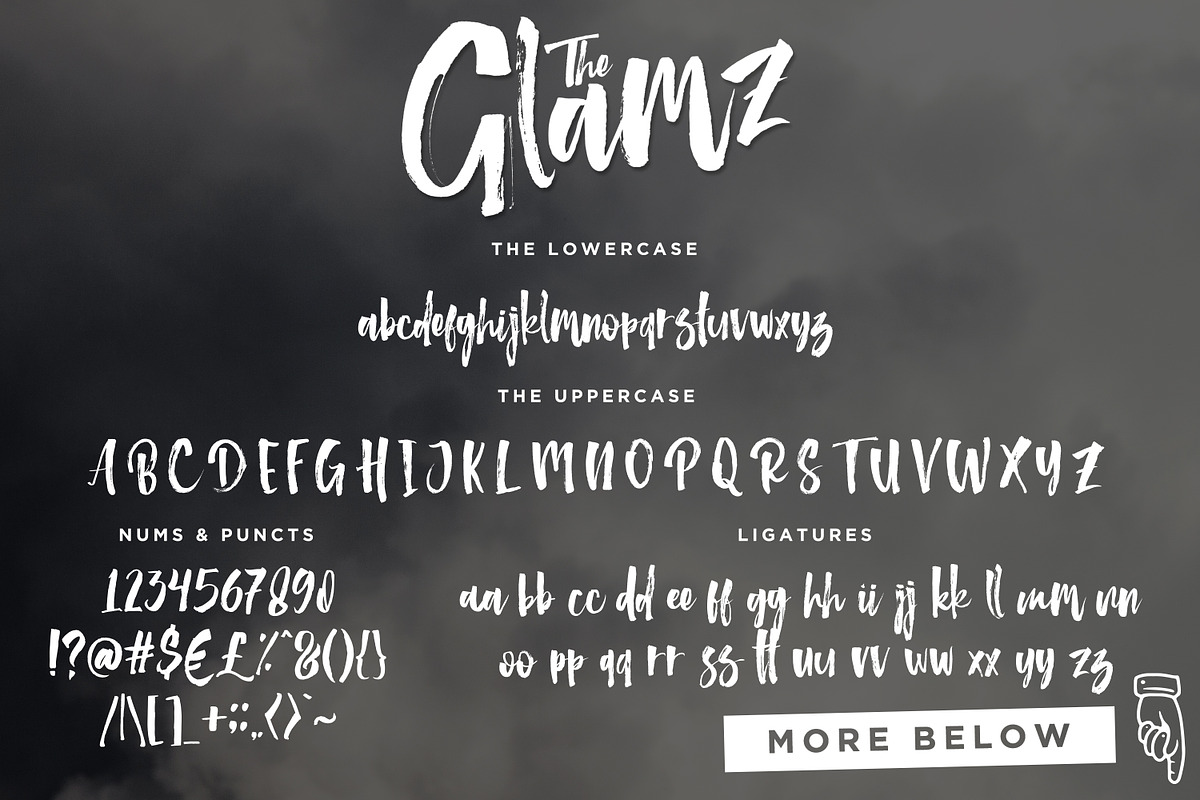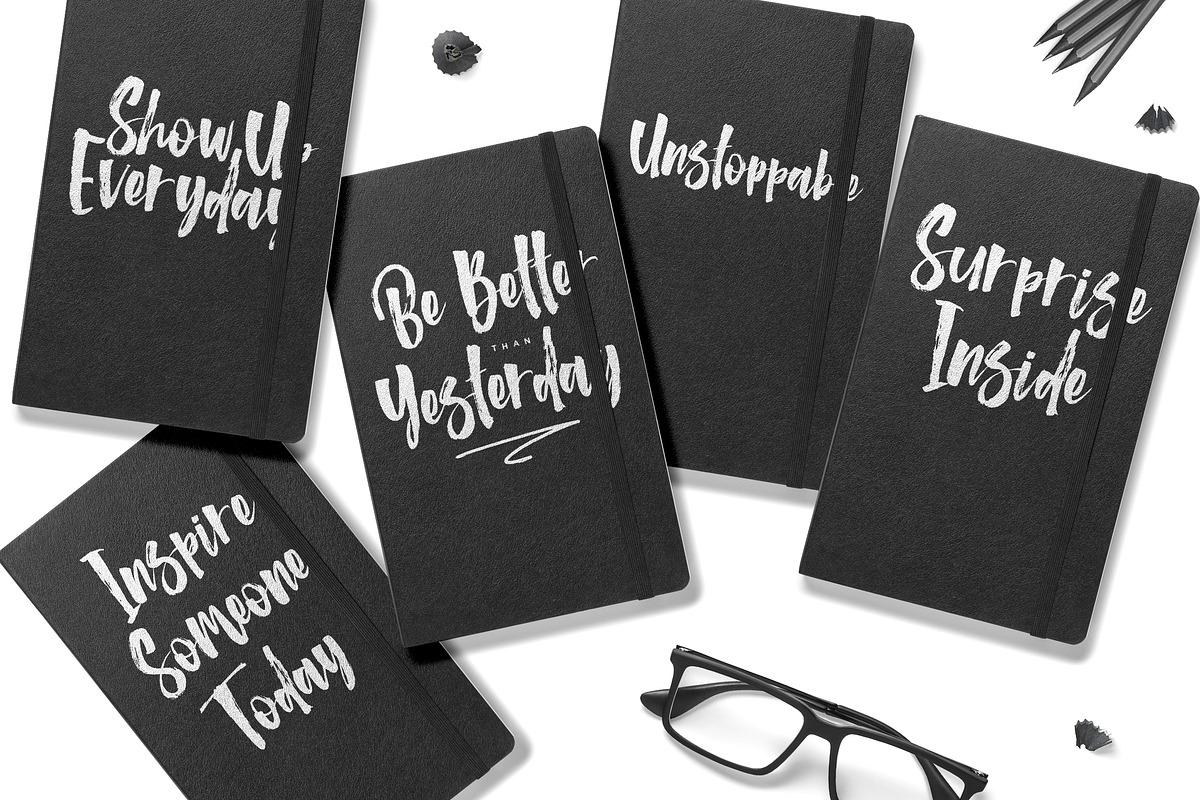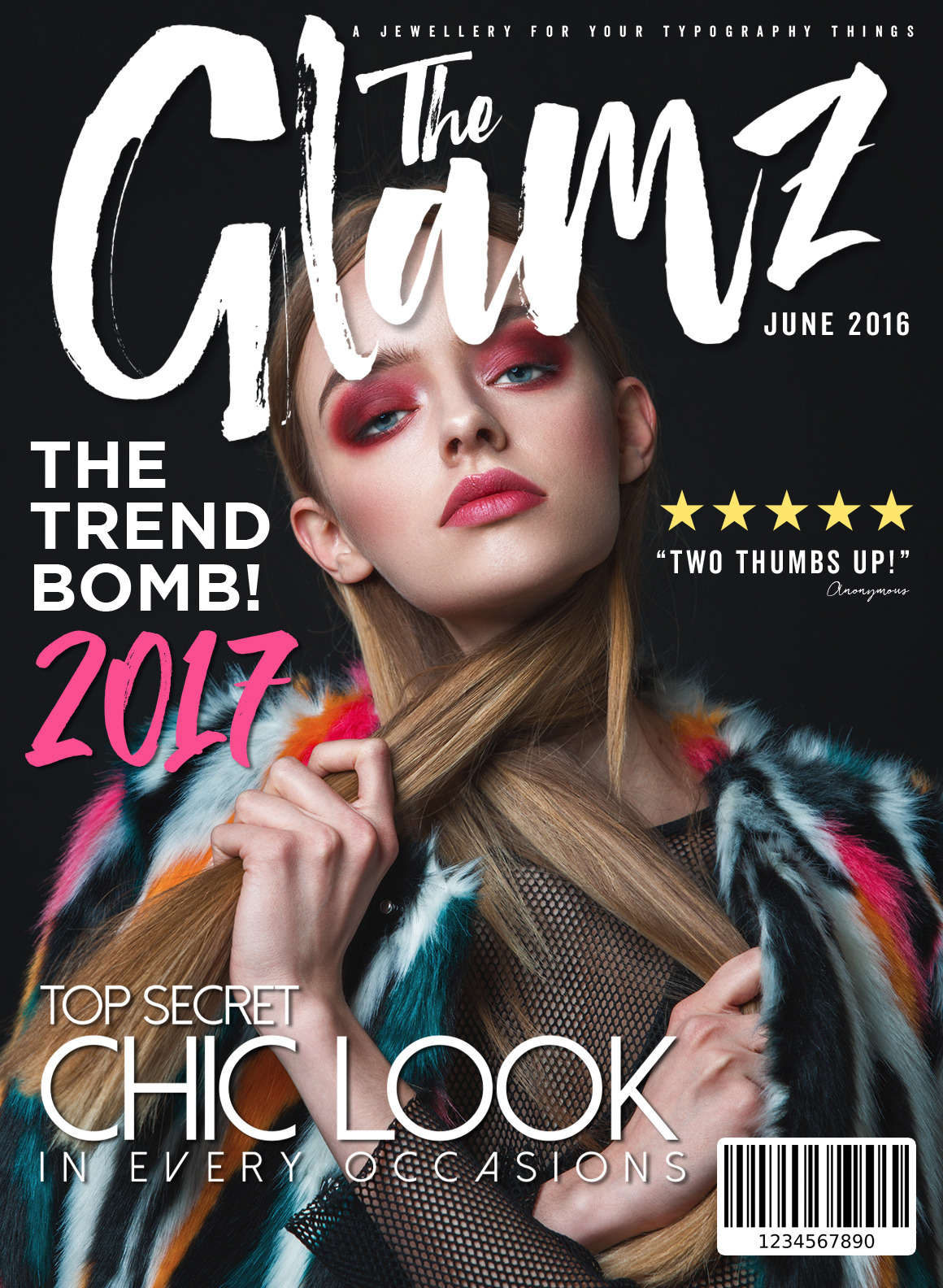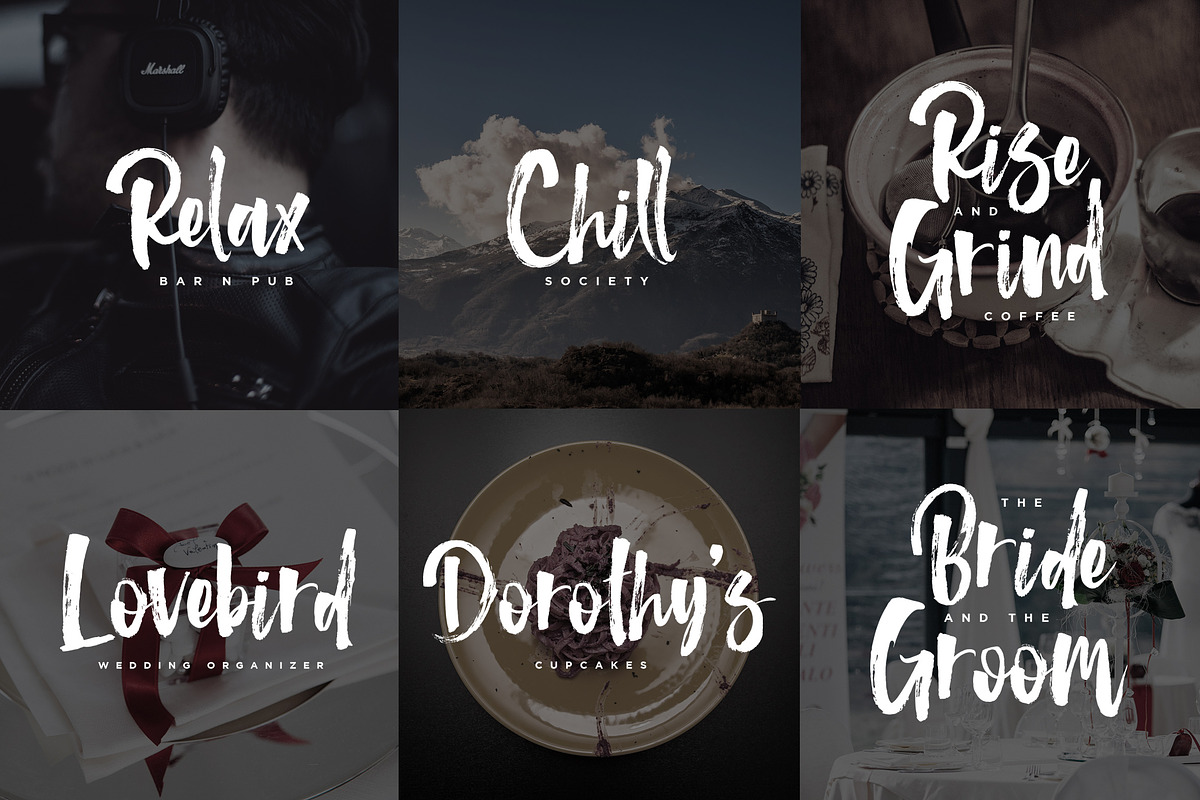
The Glamz watercolor brush logo font
Meet The Glamz, a brand new auto-chic font. Designed to fulfil your trend-catching things with the edgy style and undeniable artsy look. Perfectly fit for your fashion branding stuff, handwriting logo, inspirational quote poster, oh well you name it.